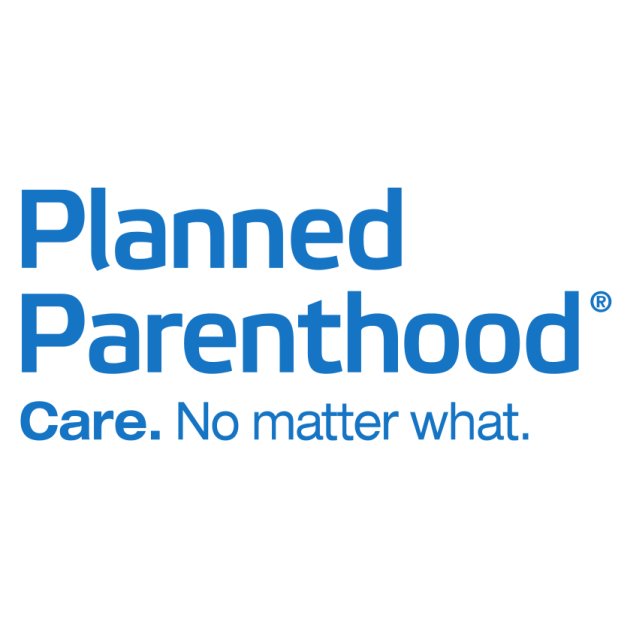
Planned Parenthood Font
Fonts in UsePlanned Parenthood is a non-profit organization that provides reproductive health care services, including contraception, STD testing, cancer screenings, and abortions, in the United States and globally.
Planned Parenthood's logo features two different sans-serif typefaces: the squarish Etelka Medium by Czech type designer František Štorm for the main logo and the widely used Helvetica by Swiss typeface designer Max Miedinger for its motto beneath.